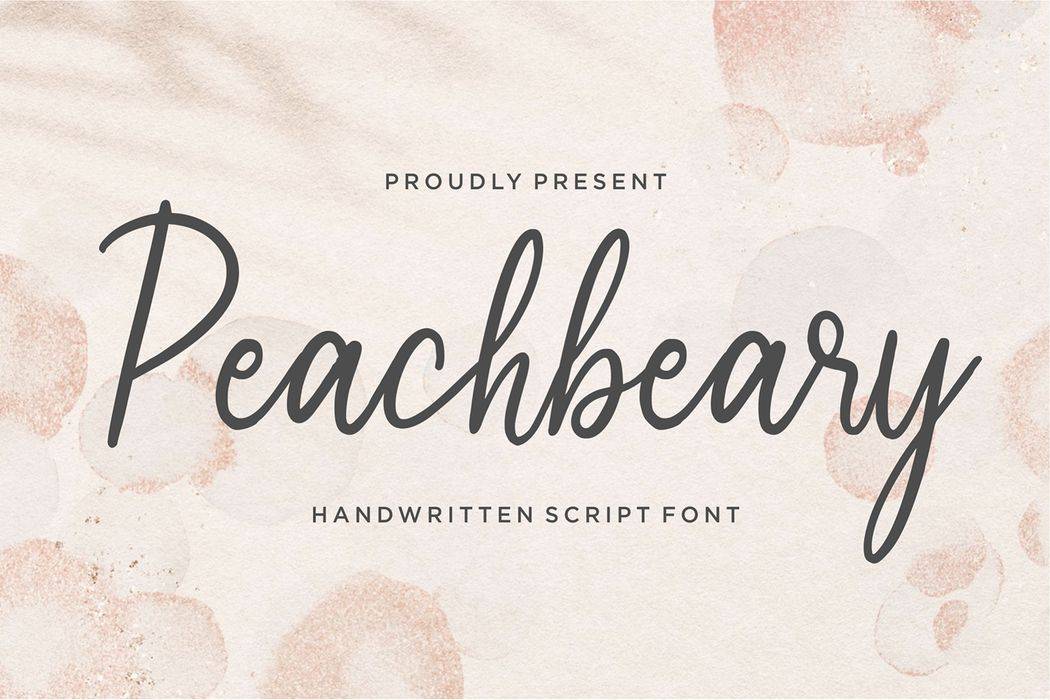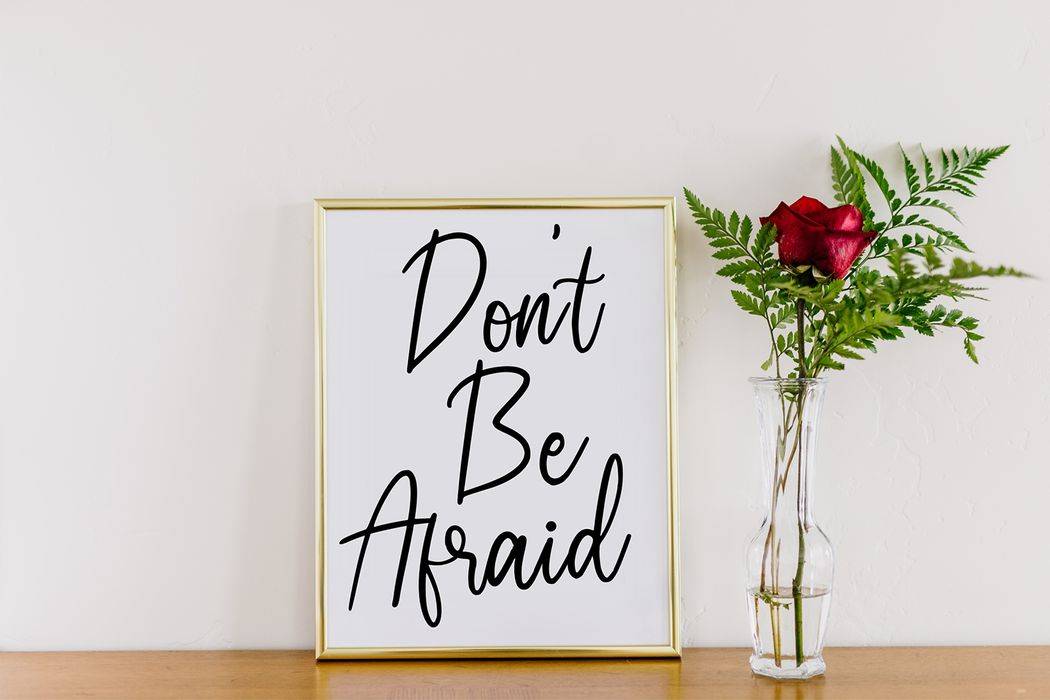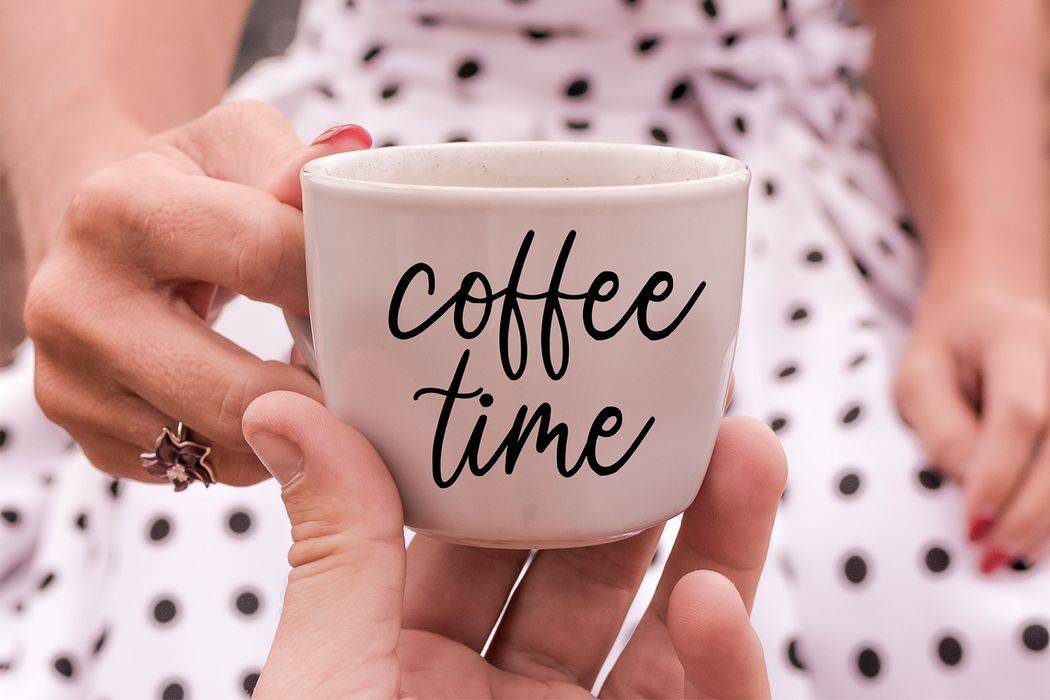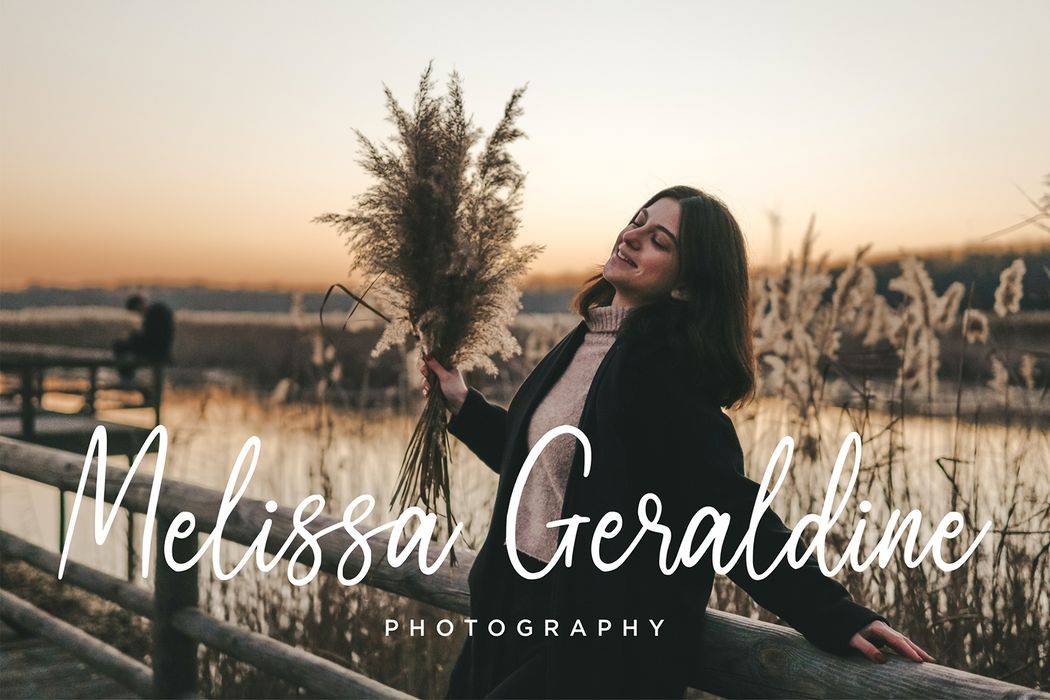
Peachbeary Font is a slender and elegant script typeface with a hand-drawn, casual charm. Its tall, flowing letterforms and smooth curves give it a friendly and approachable feel, making it perfect for branding, invitations, and creative projects that desire a personal, stylish touch. This font works well in headlines or decorative use where a delicate, modern script vibe is needed.
Peachbeary Font
About Peachbeary Font